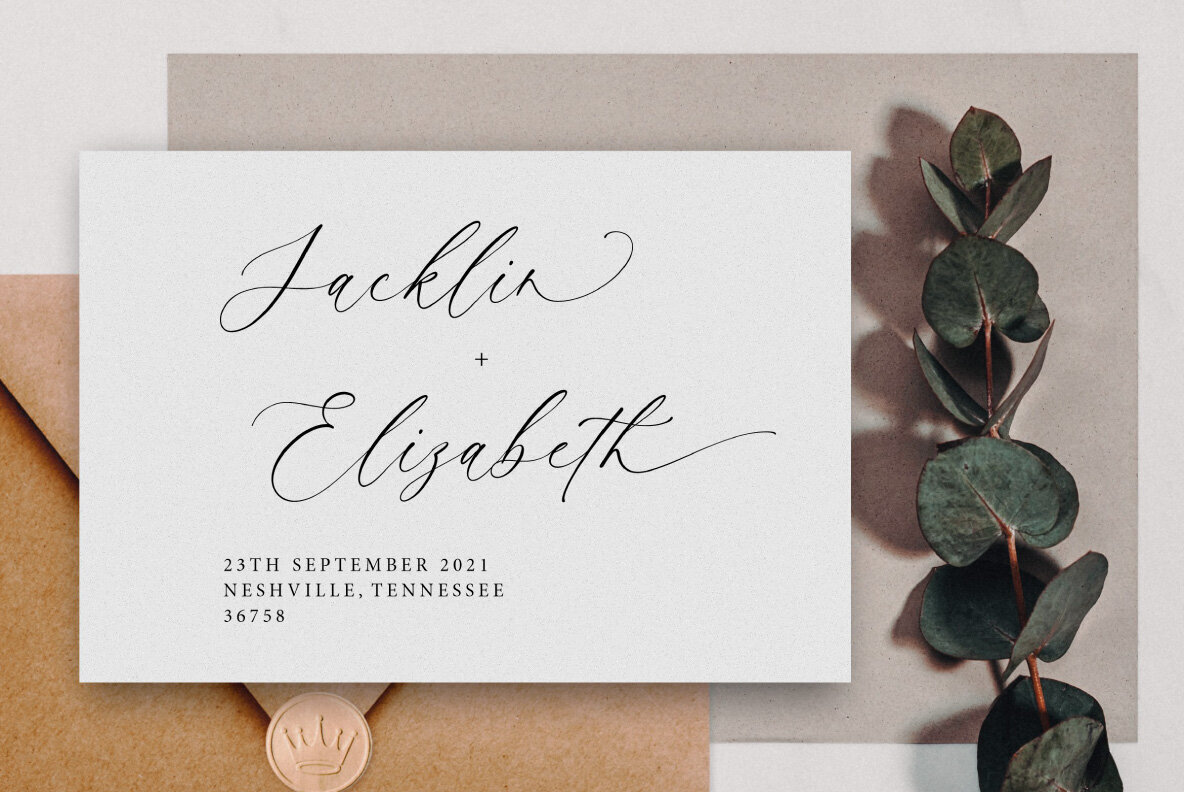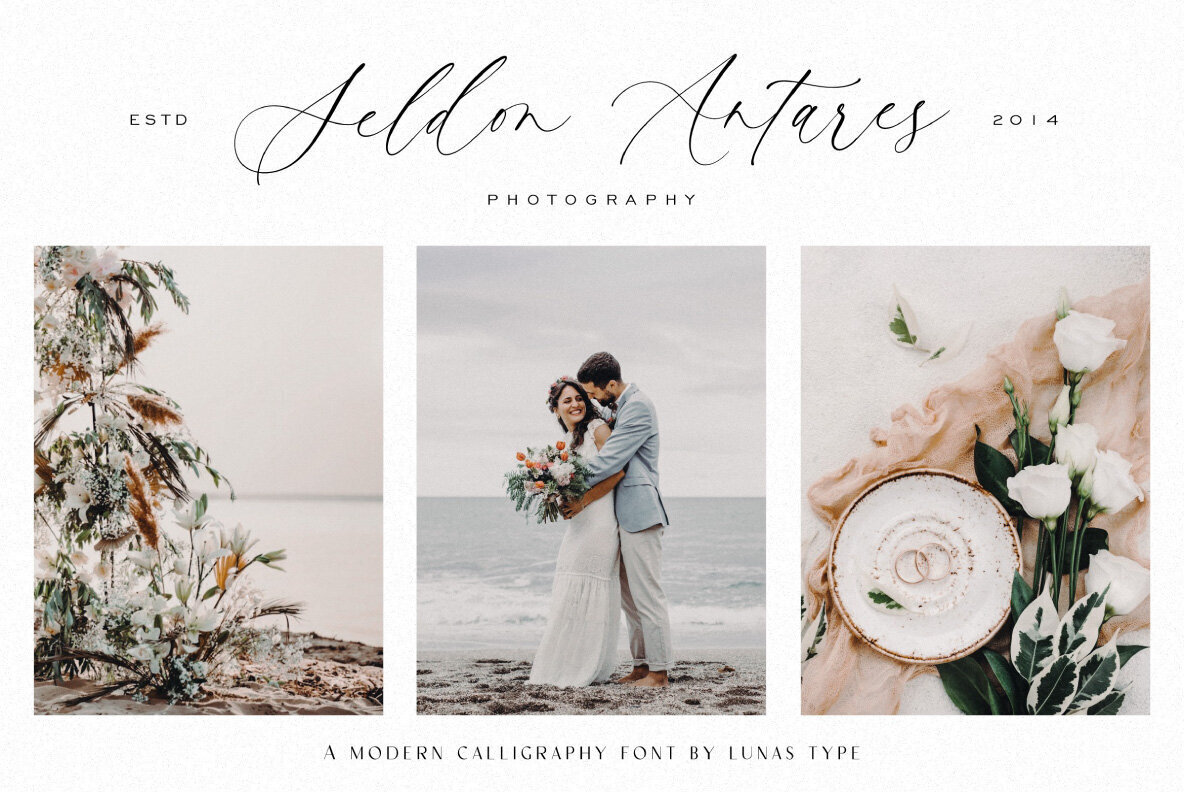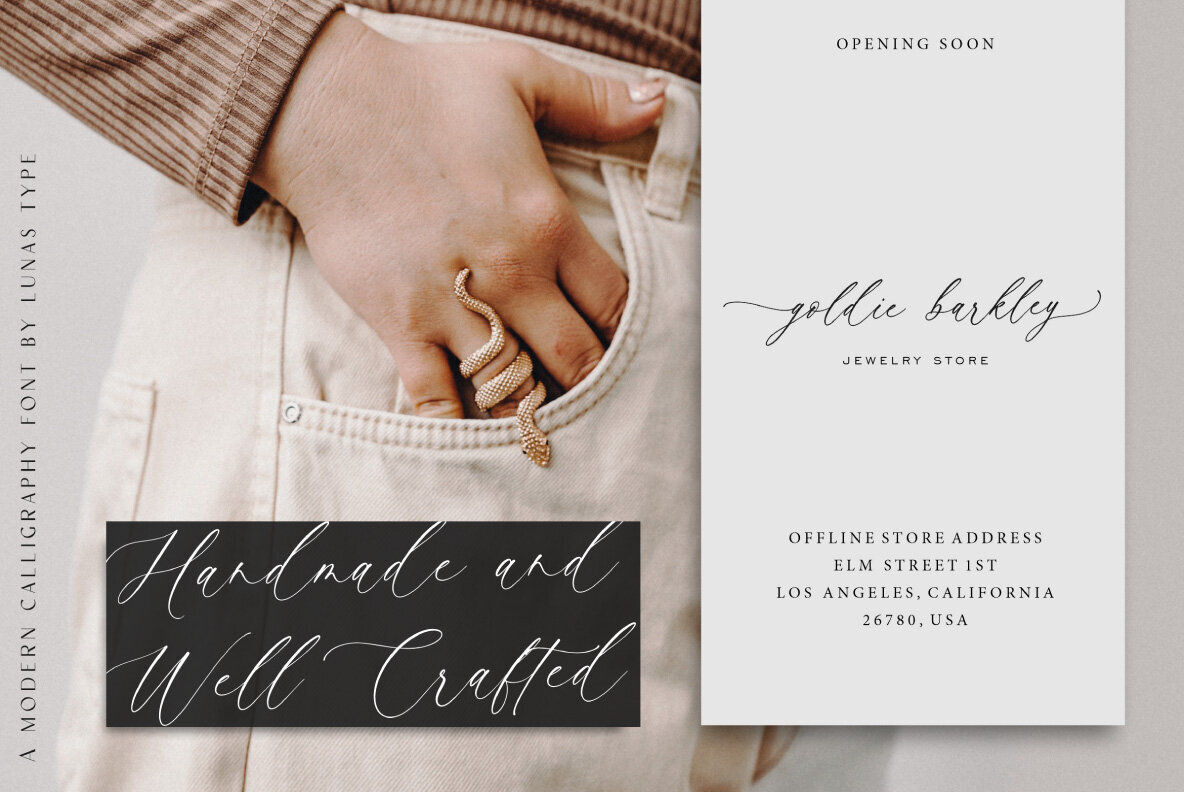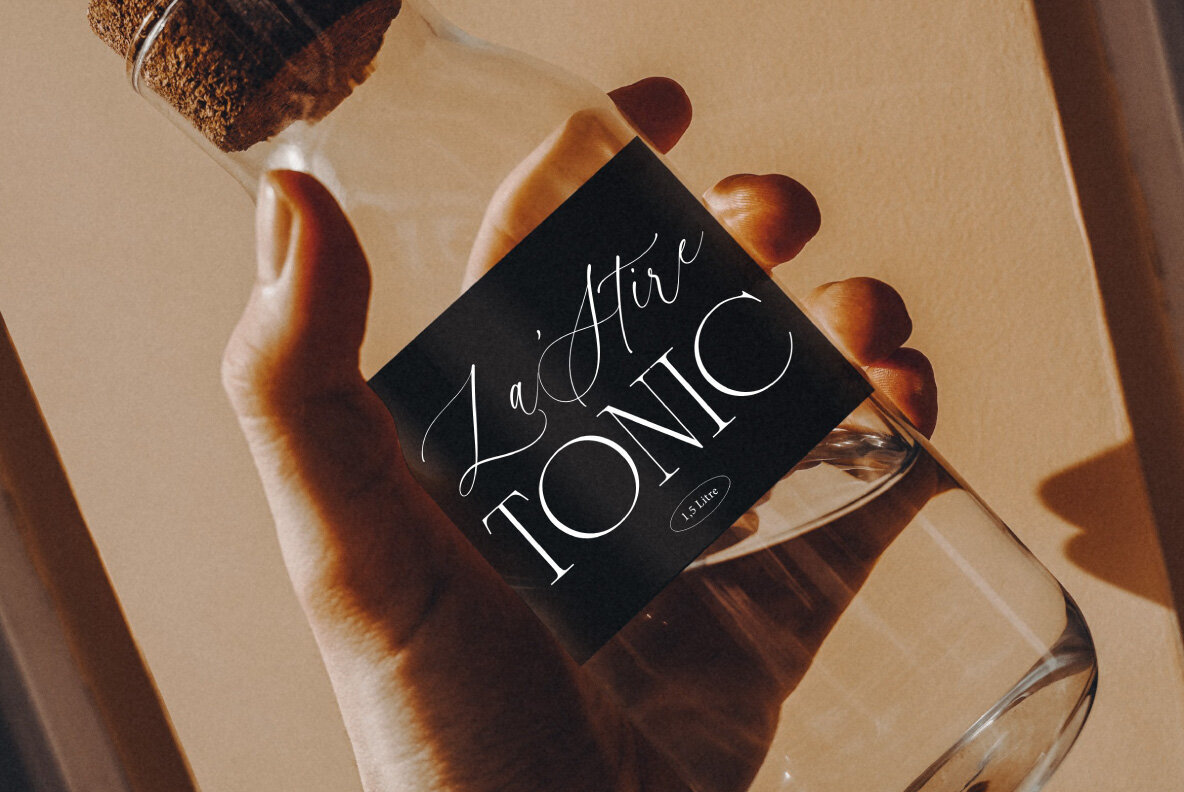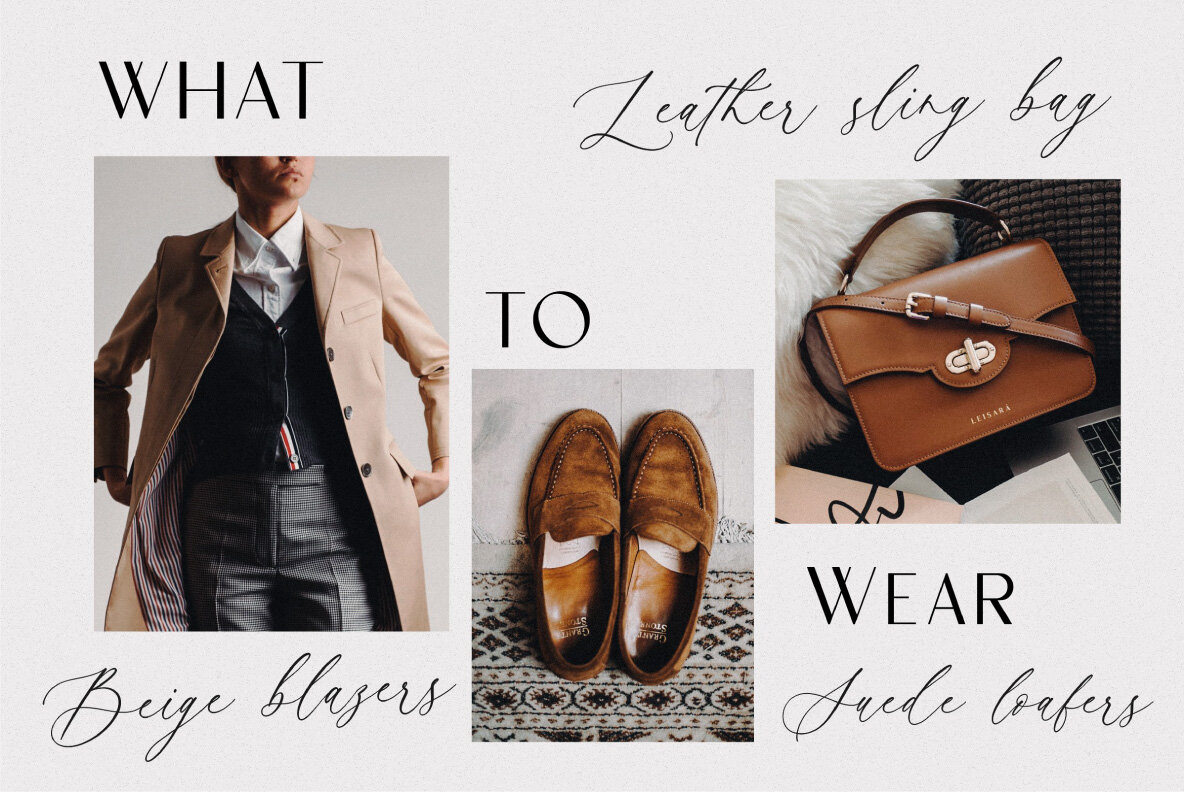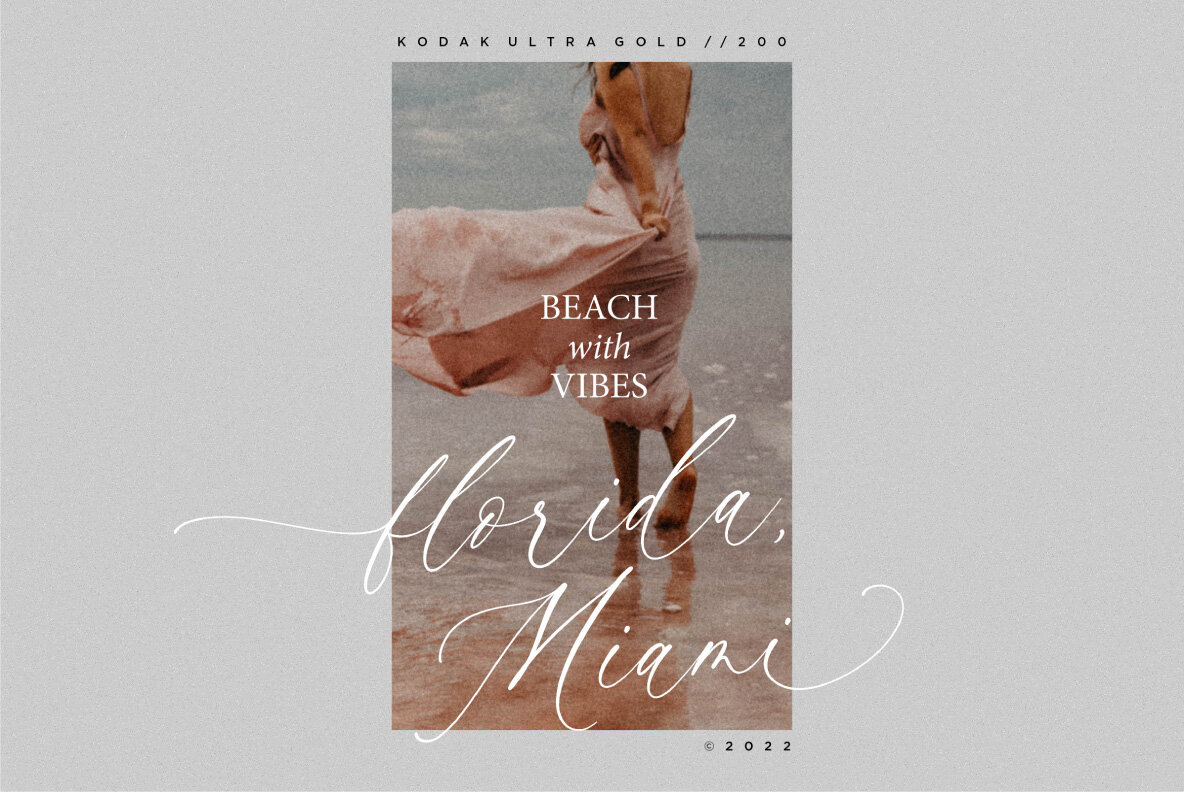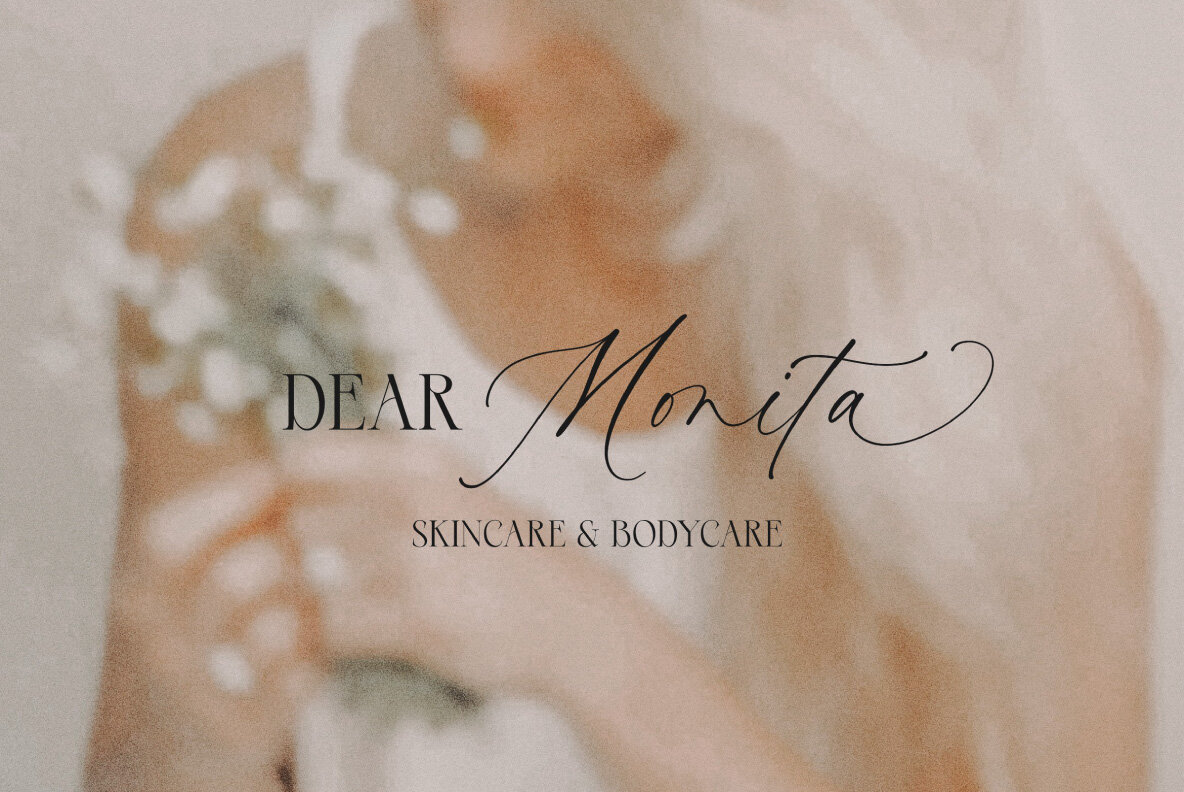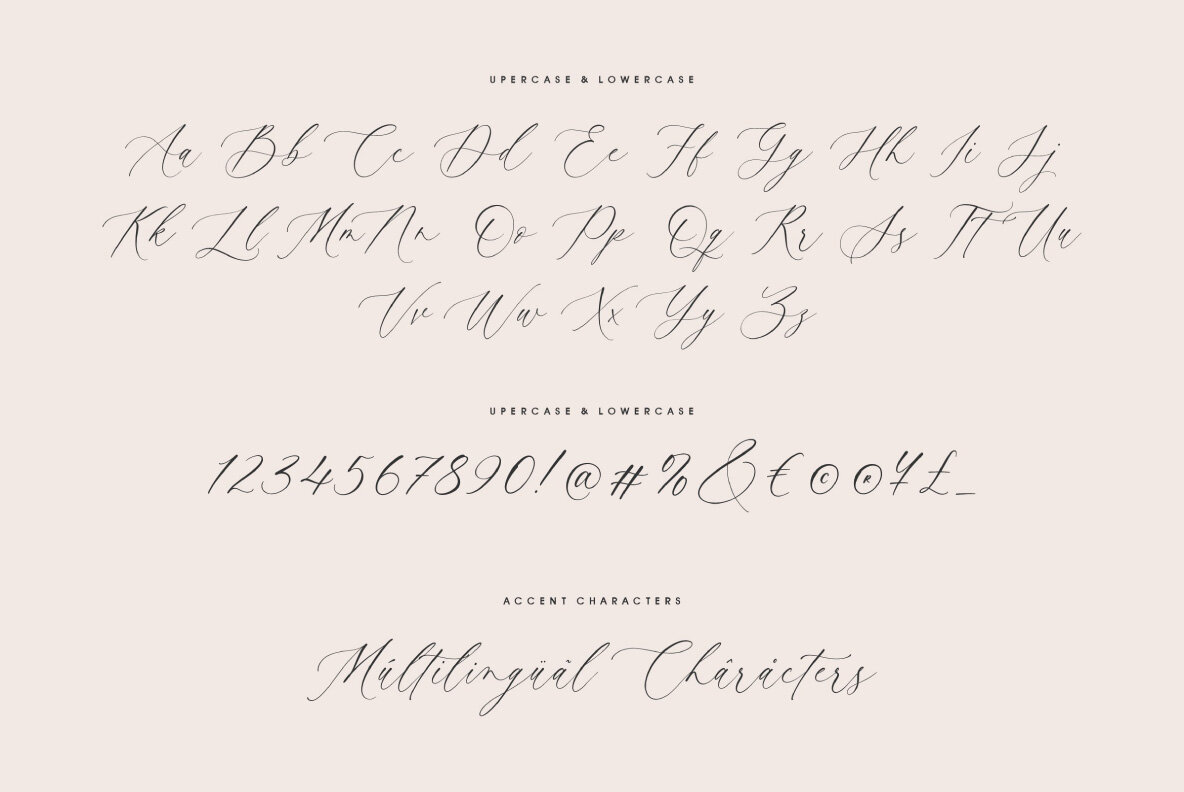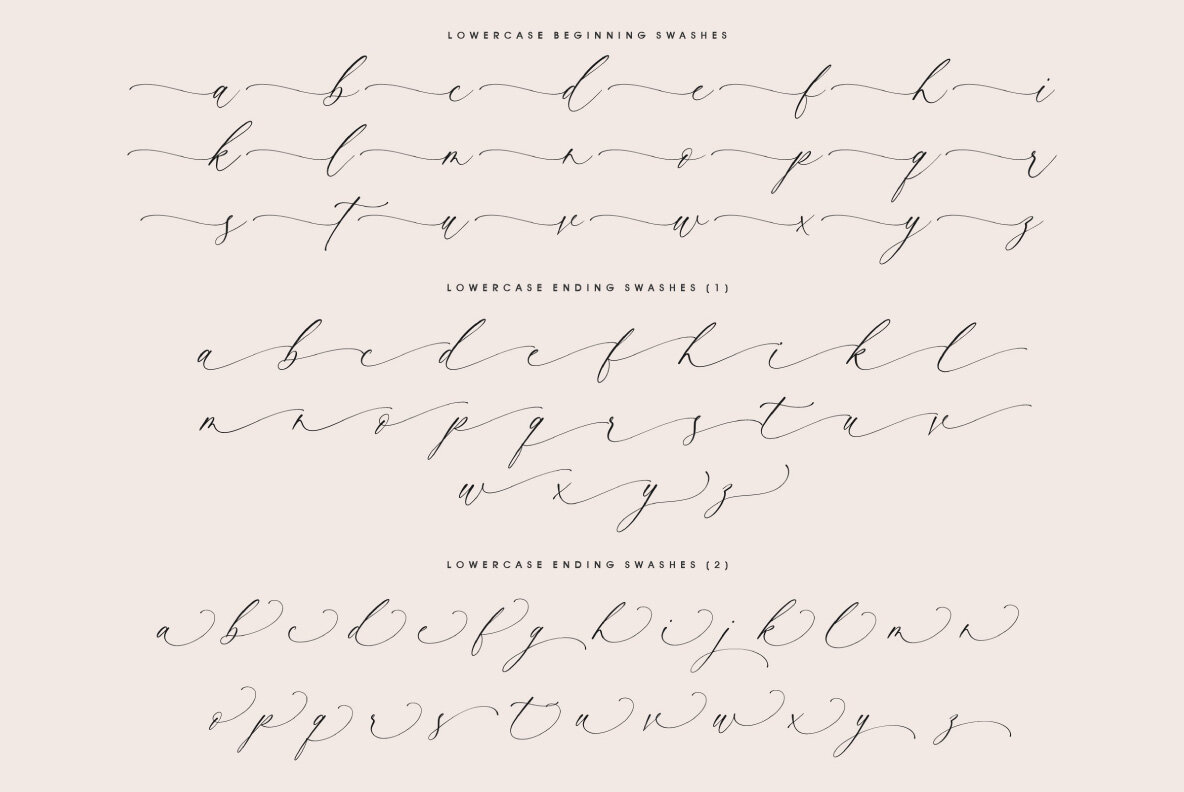
Vintage Loving: Elegance in Calligraphy
Vintage Loving presents itself as a vintage and luxury calligraphy font with a chic blend of nostalgic aesthetics and natural allure. Its graceful curves lend an effortlessly charming touch to any design endeavor. Ideal for a variety of applications, from merchandise and T-shirts to signature logos and weddings, this font offers unmatched versatility. Enhance your projects, whether they're book covers, social media posts, or event materials.
• Elegant ending and beginning swashes
• Comprehensive numeral and punctuation support
• Captivating ligature options
• Broad multilingual capabilities